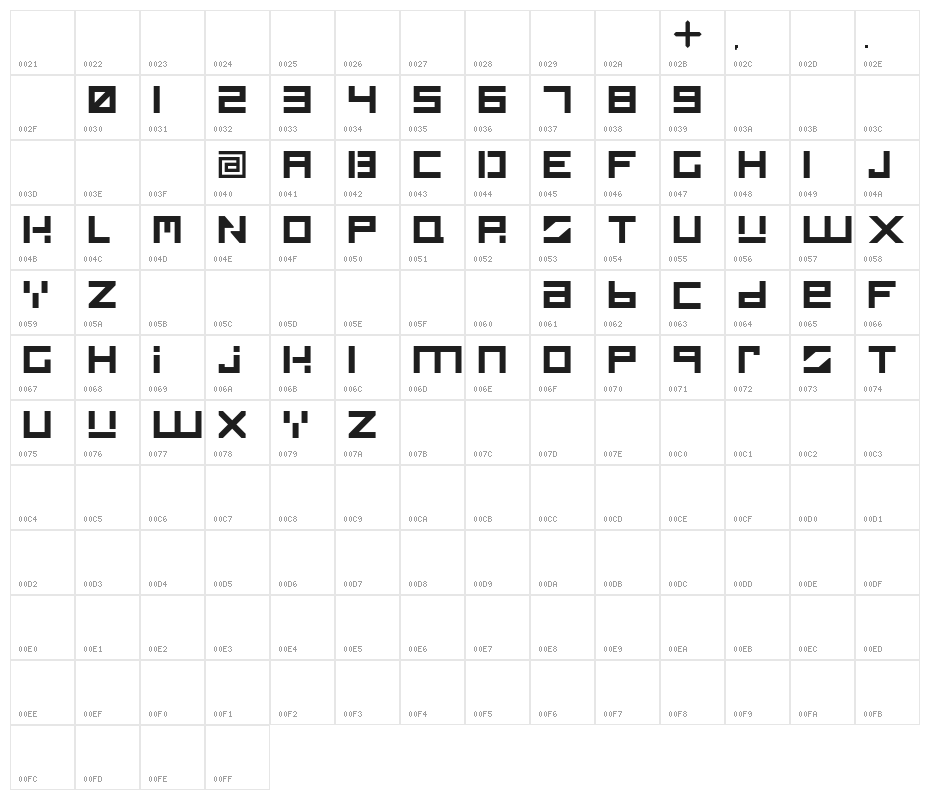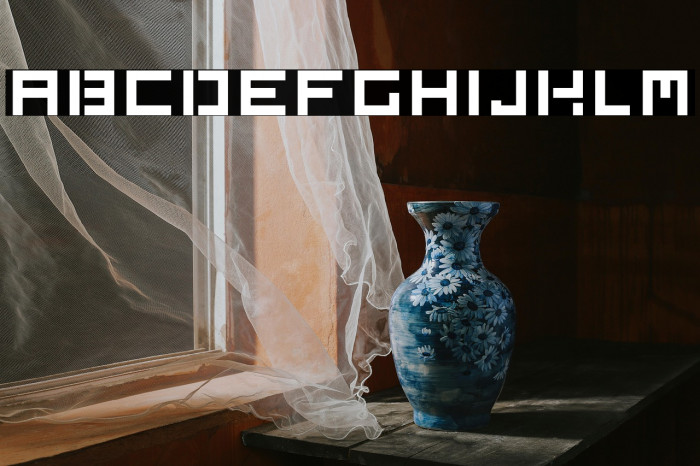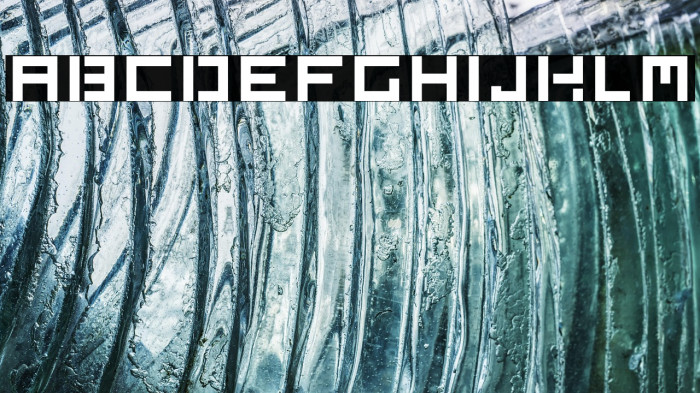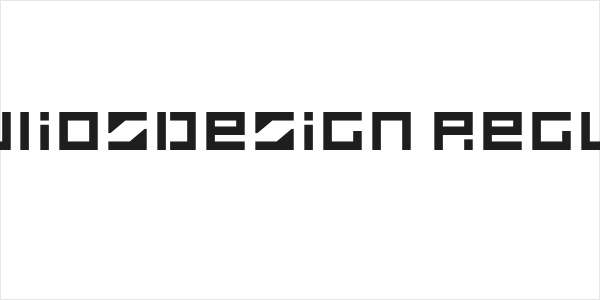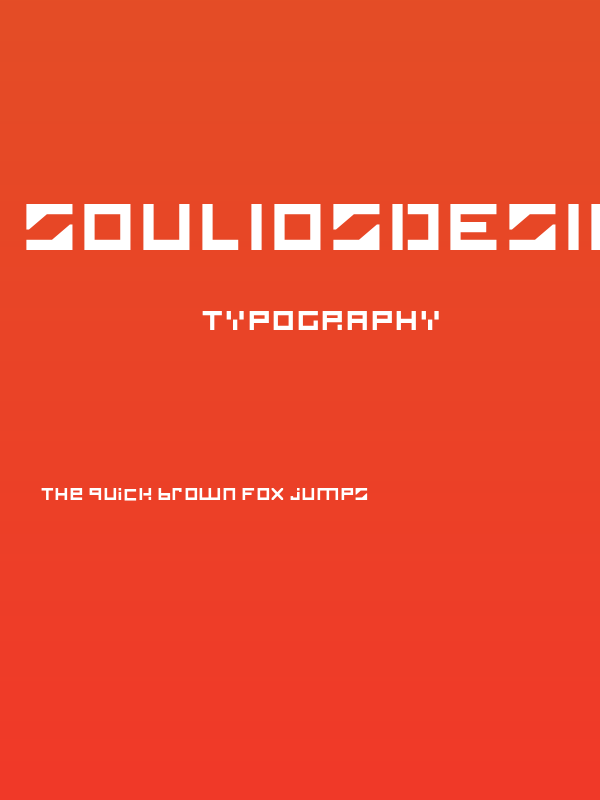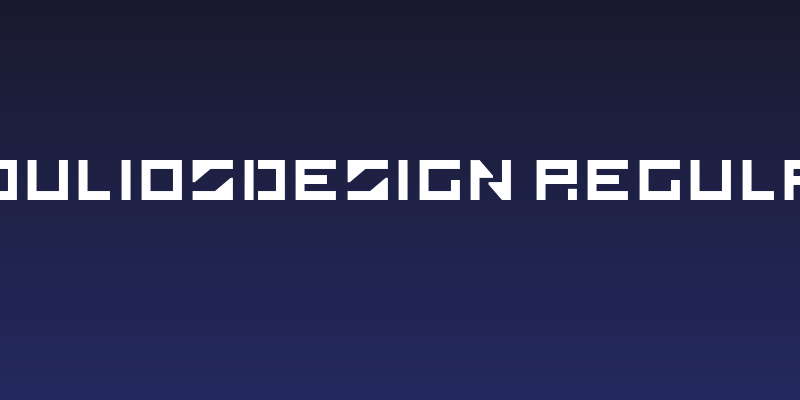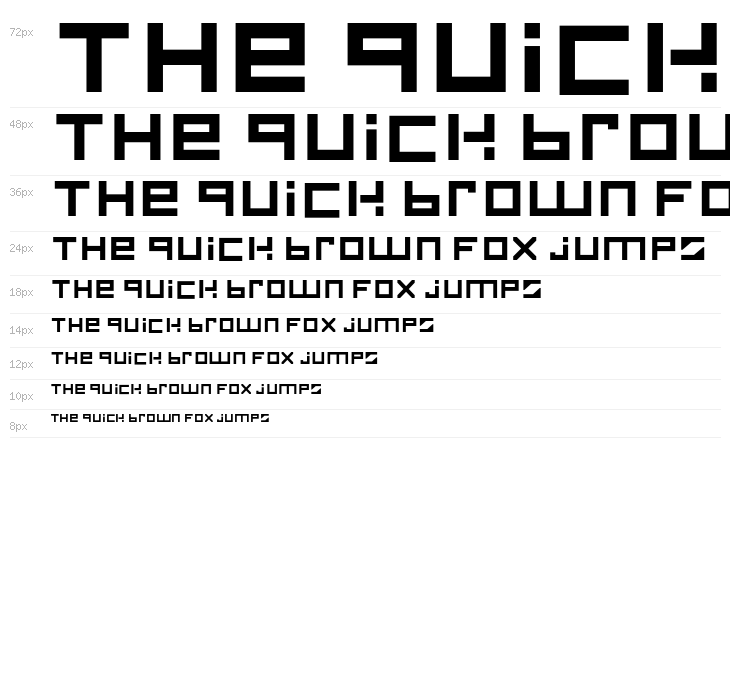
SouliosDesign-Regular Font
SouliosDesign-Regular Description
This font features a bold, geometric design with a futuristic aesthetic. The characters are constructed with straight lines and sharp angles, giving it a modern and digital feel. The uppercase and lowercase letters maintain a consistent style, with unique cutouts and shapes that add a distinctive touch. The numbers and special characters follow the same geometric pattern, ensuring uniformity across all elements. This font is ideal for projects that require a contemporary and tech-inspired look.
| Proposed Projects | Ideal for technology branding, digital media, video game interfaces, and modern advertising campaigns. |